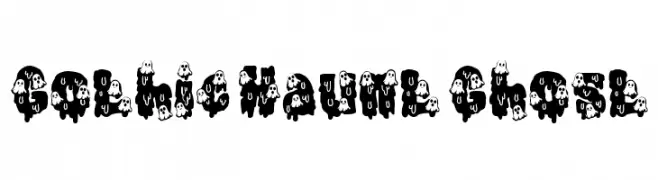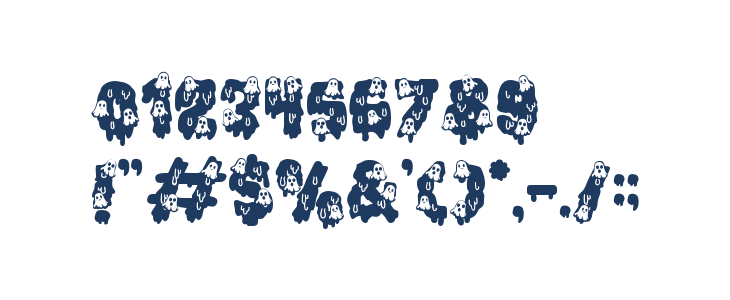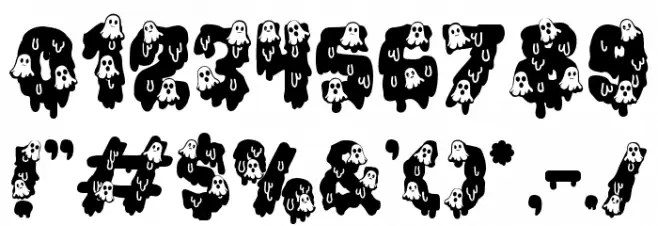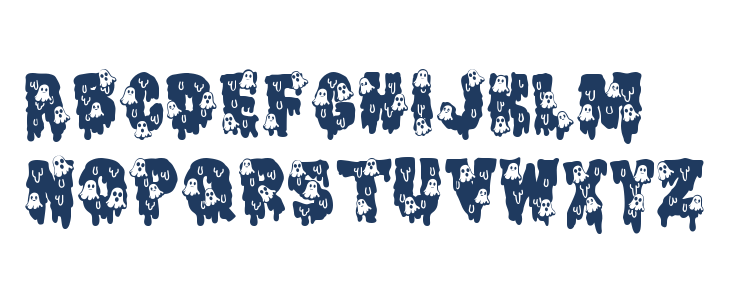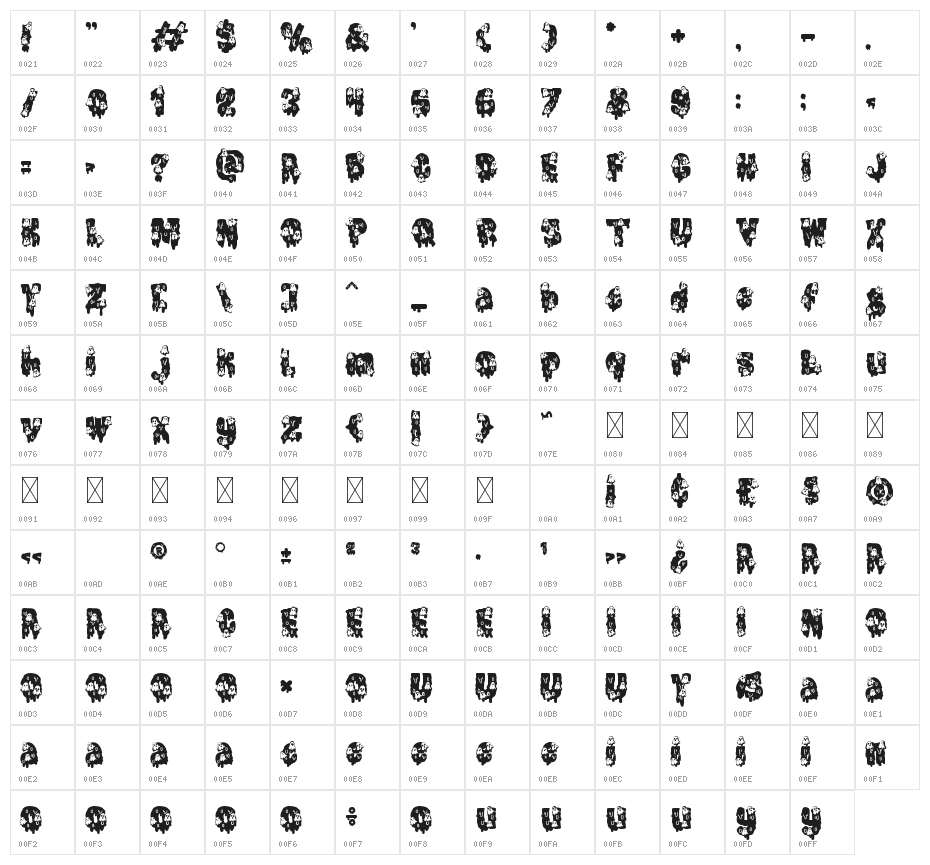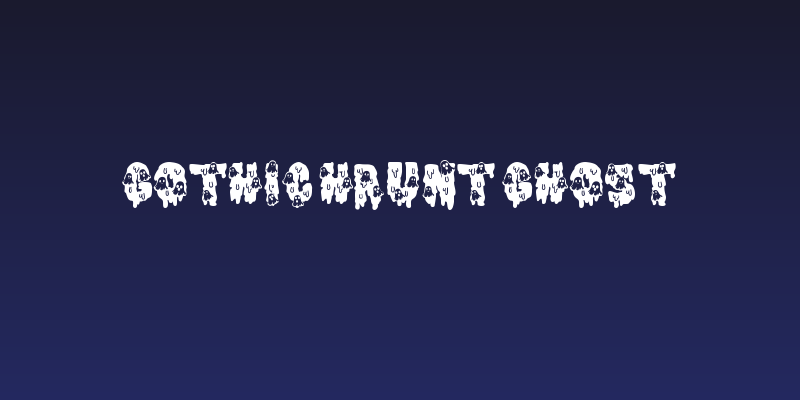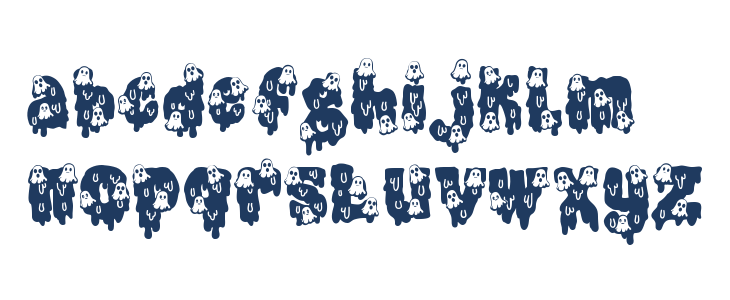
Gothic Haunt Ghost Font
Gothic Haunt Ghost Description
| Overall Style | Decorative, Playful, Spooky |
| Use Case | Headlines, Posters, Event Flyers, Themed Logos |
| Proposed Projects | Halloween party invitations, haunted house posters, themed event flyers, children's spooky storybooks, seasonal merchandise. |